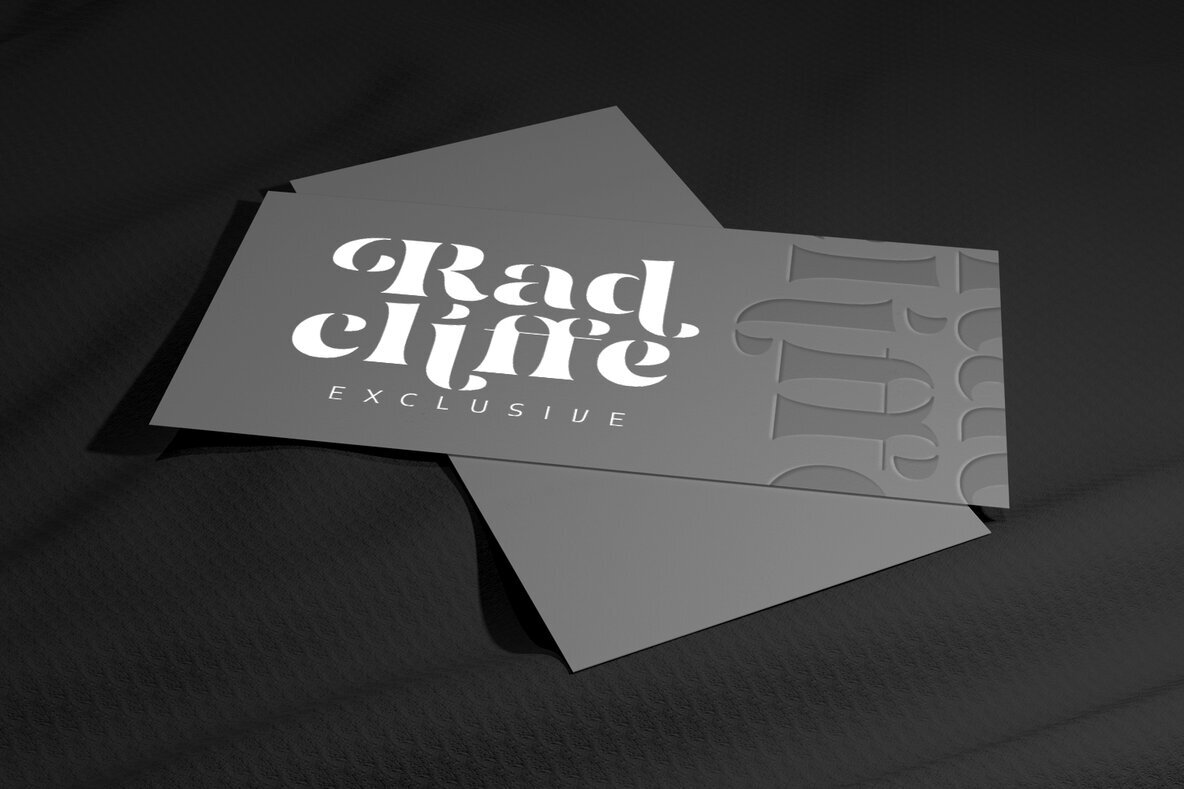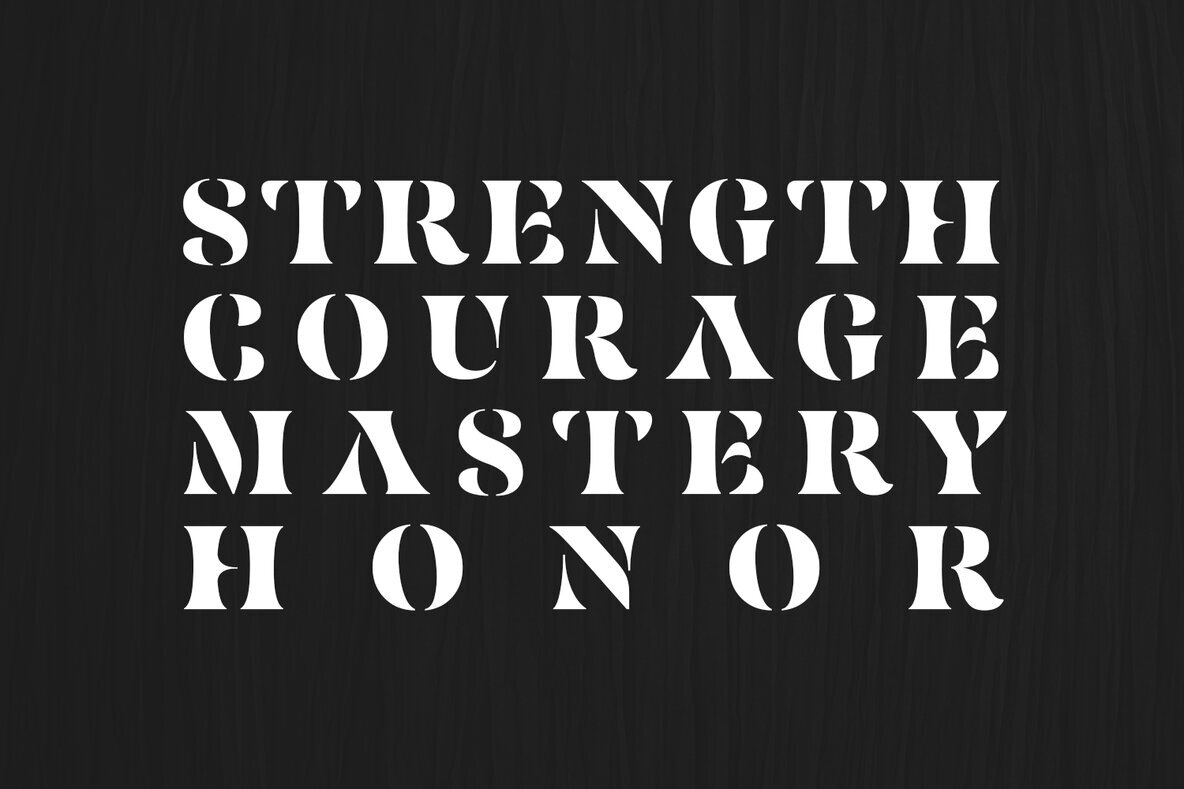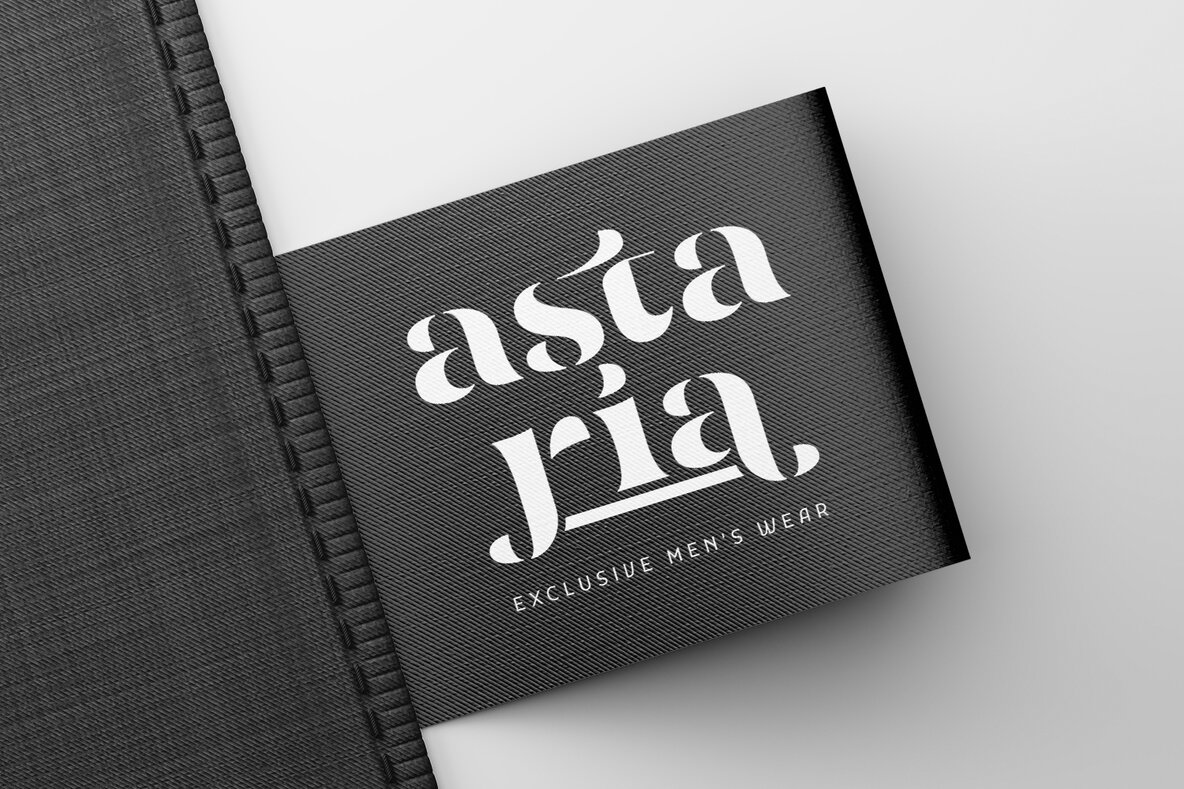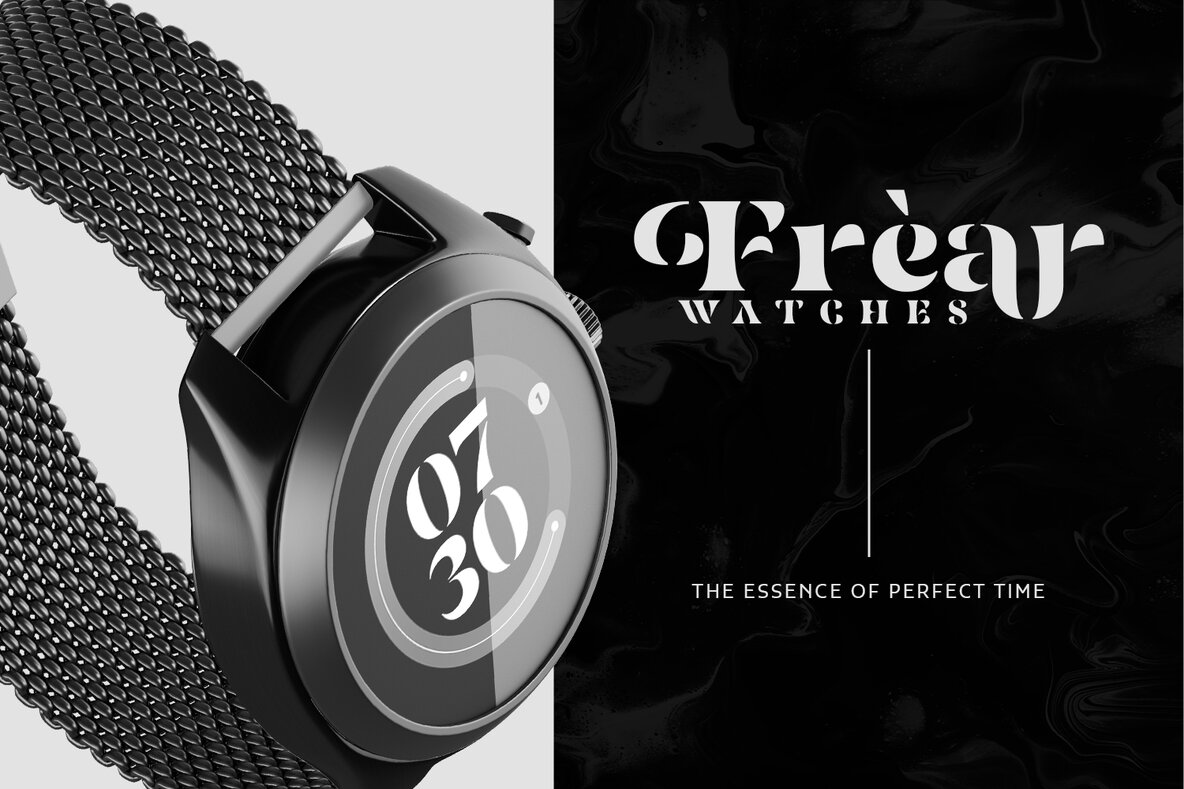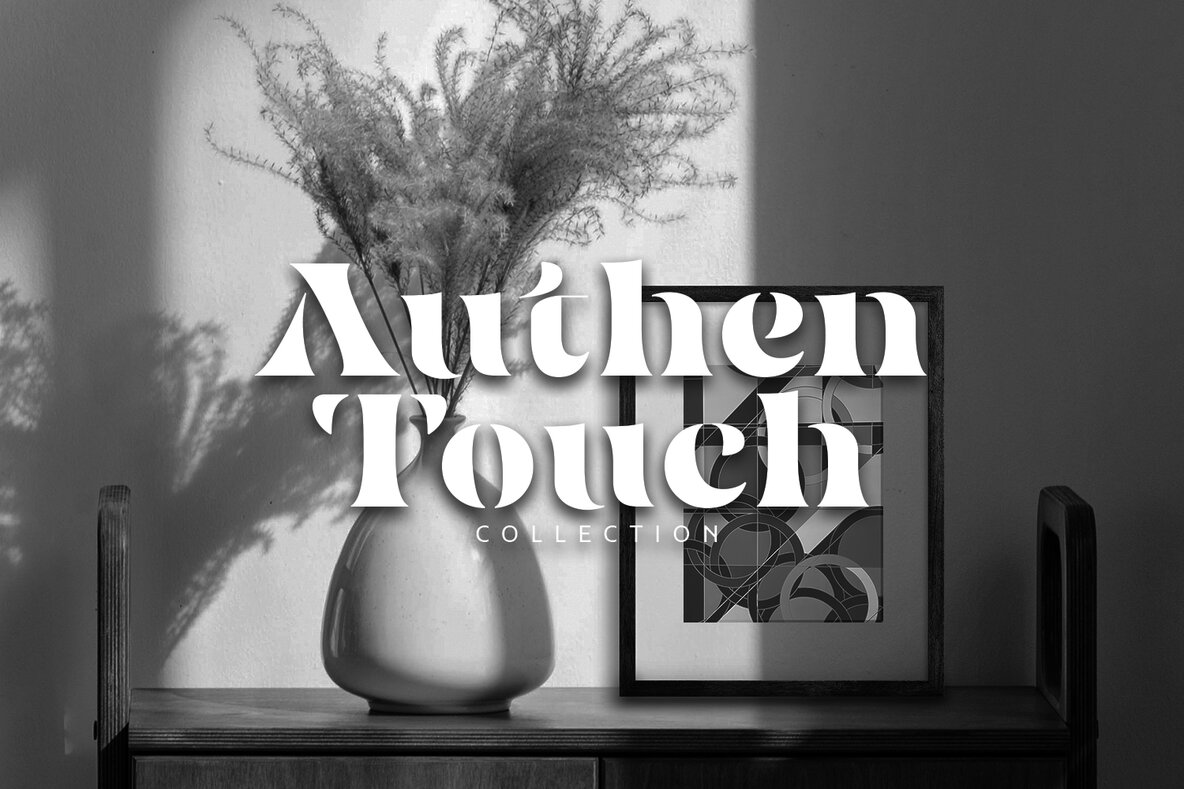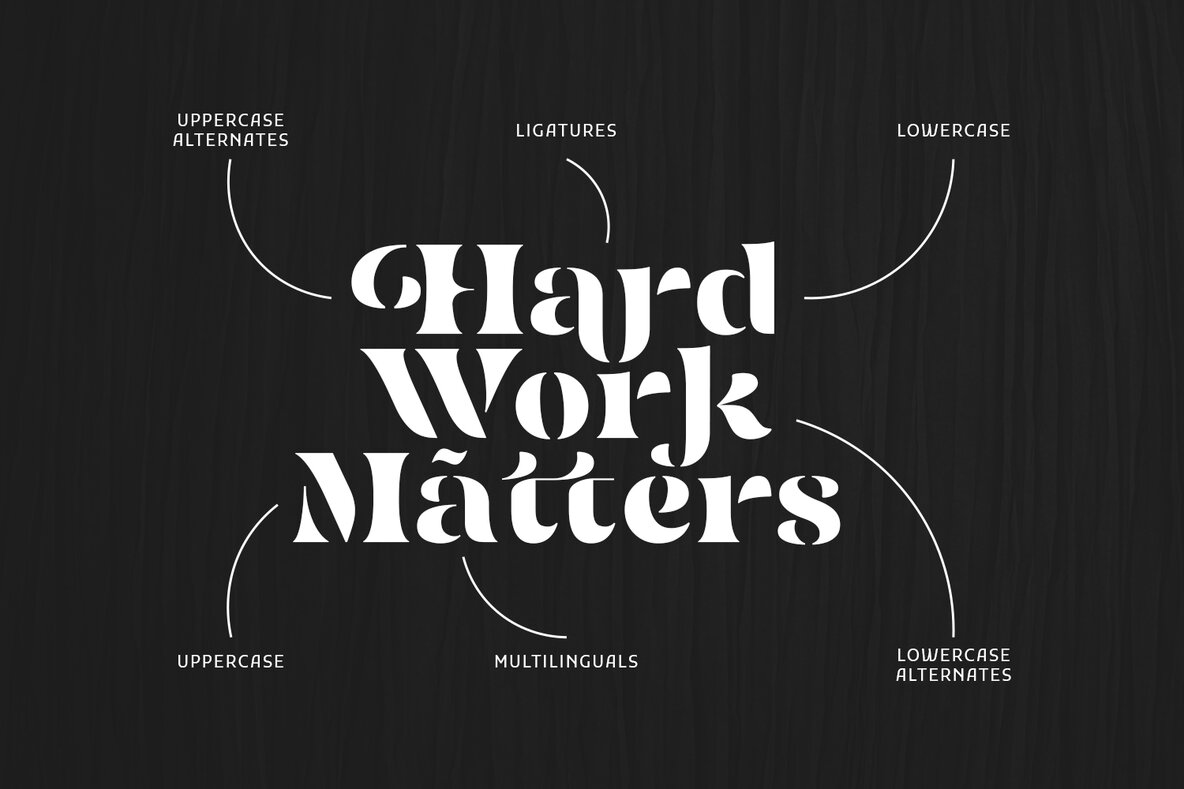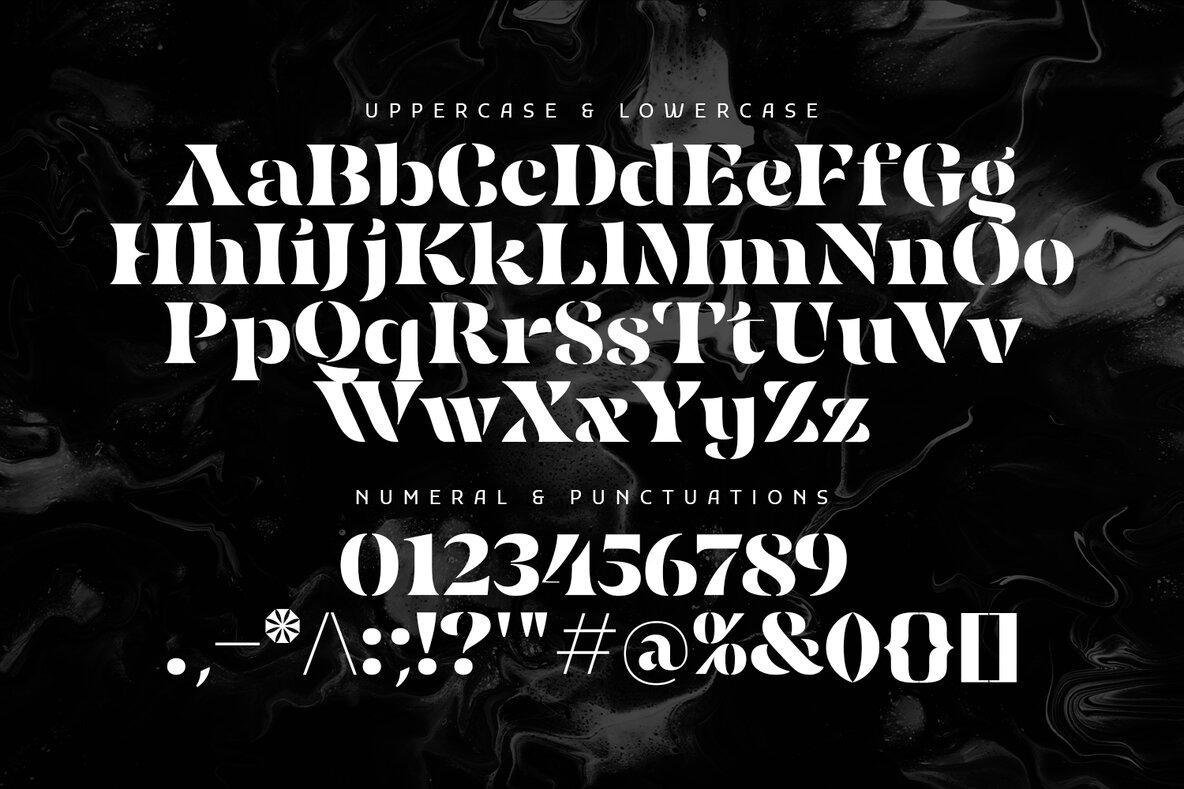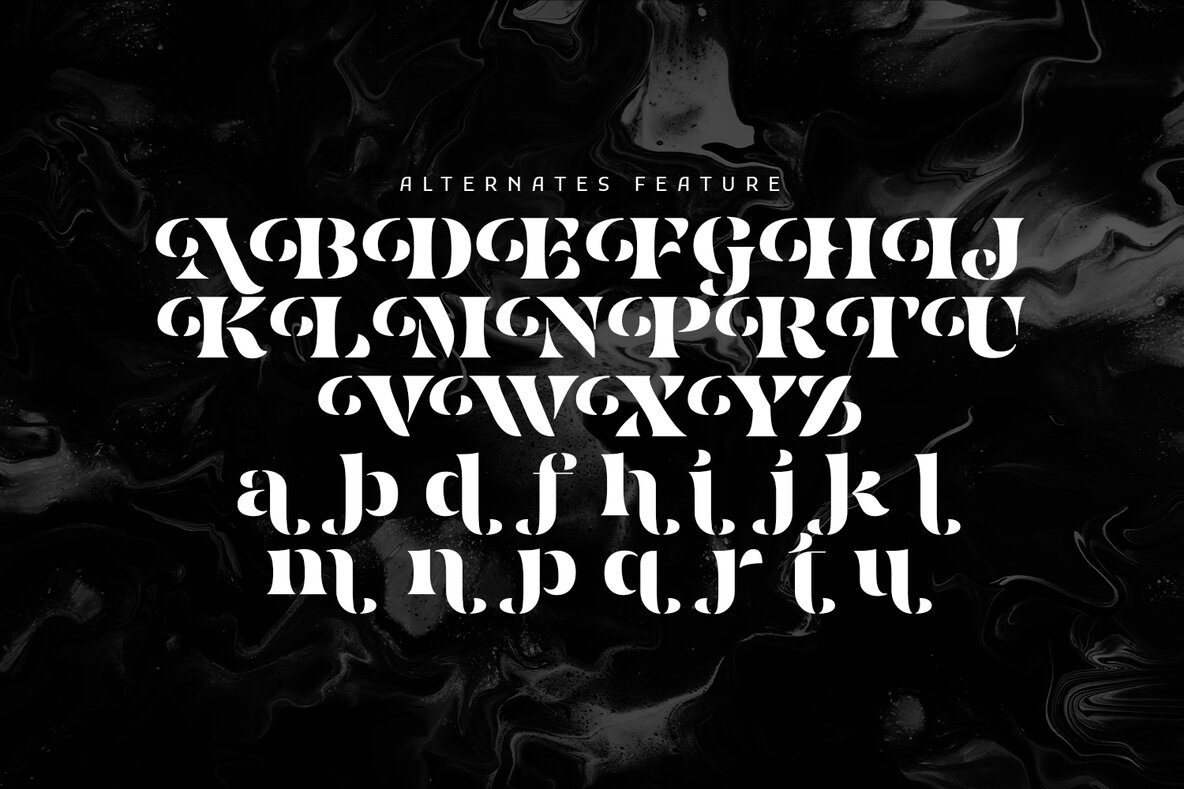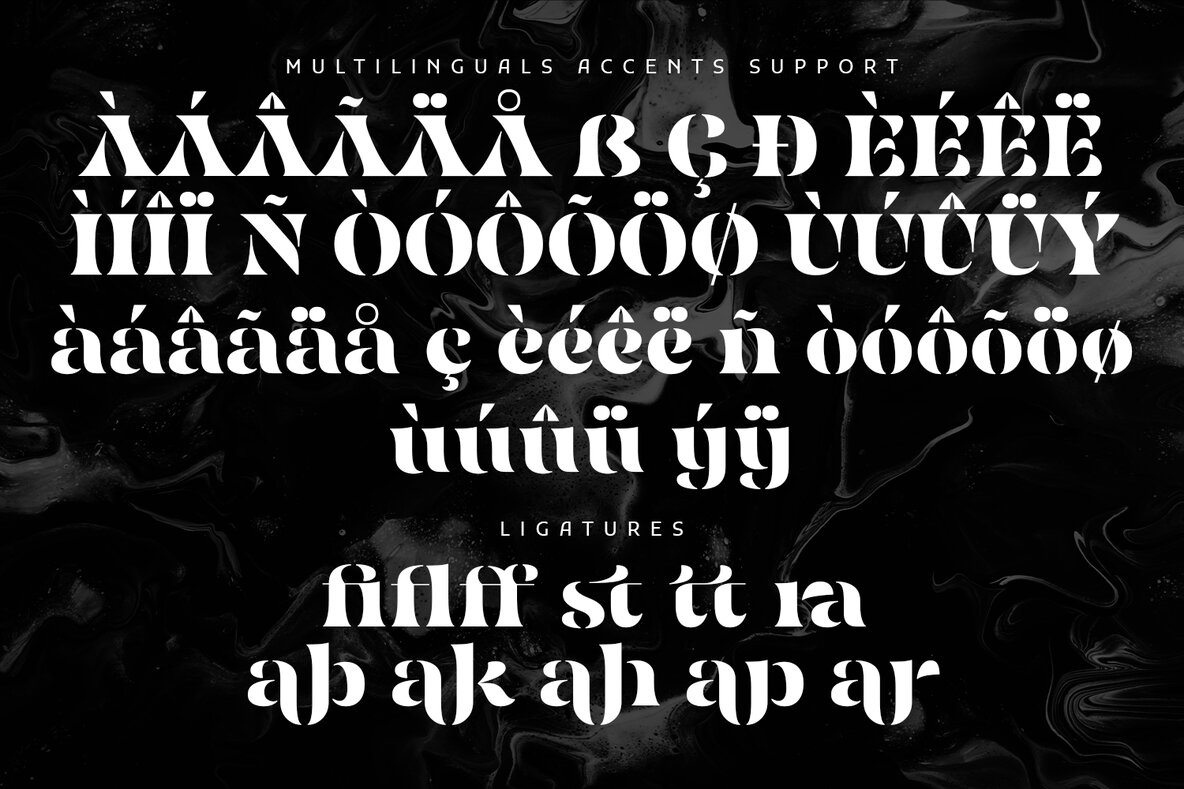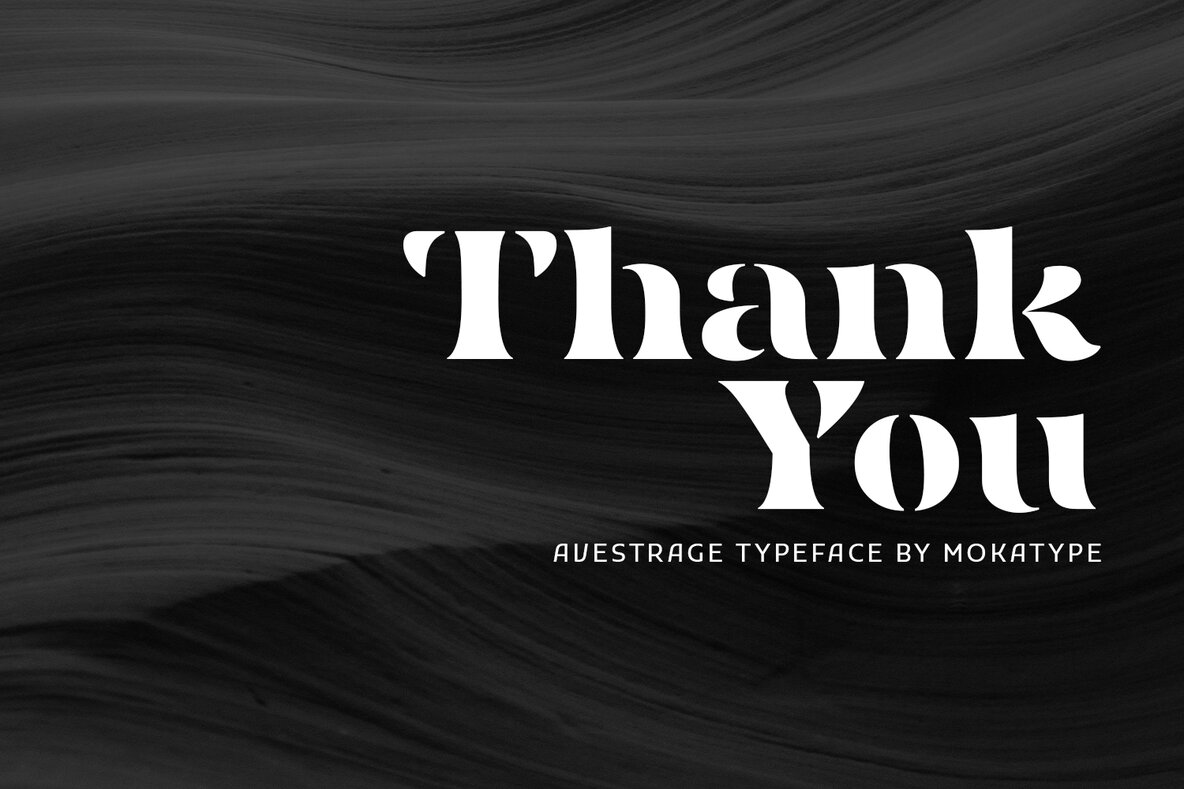
Avestrage Font
Avestrage
Stand out from the crowd with Avestrage, a sophisticated stencil serif typeface designed for captivating visuals. Boasting stylish looks and plenty of alternates & ligatures to choose from; this font is perfect for achieving your desired look in any design environment -- be it modern or retro!
You can create posters, headlines, merchandise designs as well app/web interfaces that will surely turn heads wherever they are used.
- Ligatures (Opentype features)